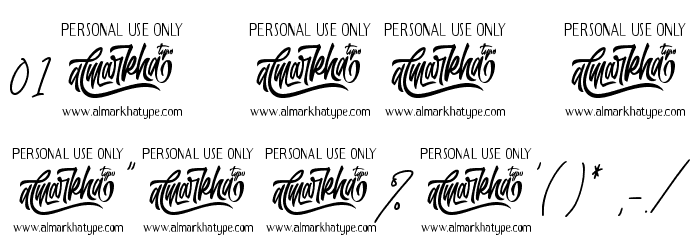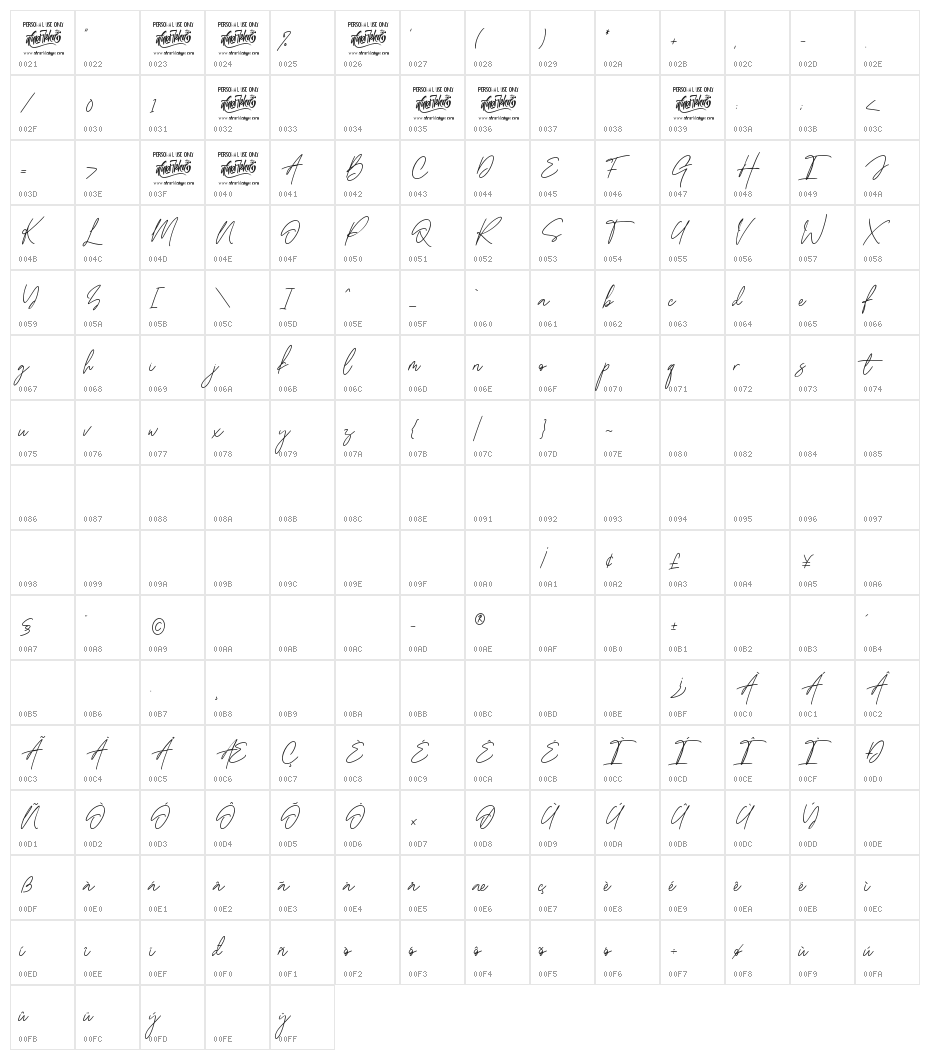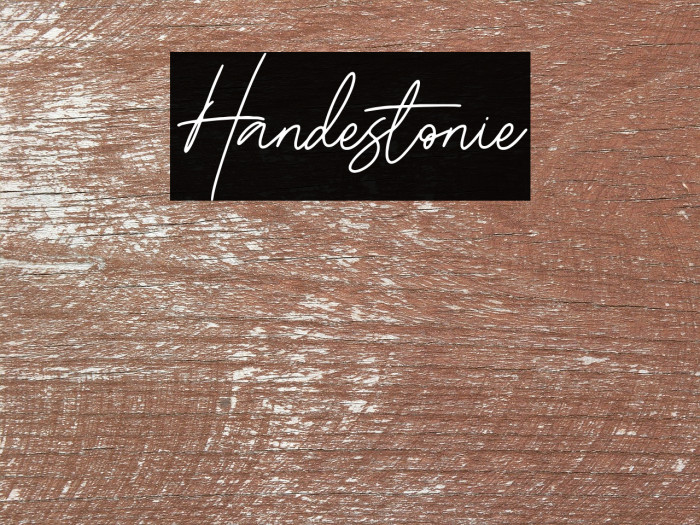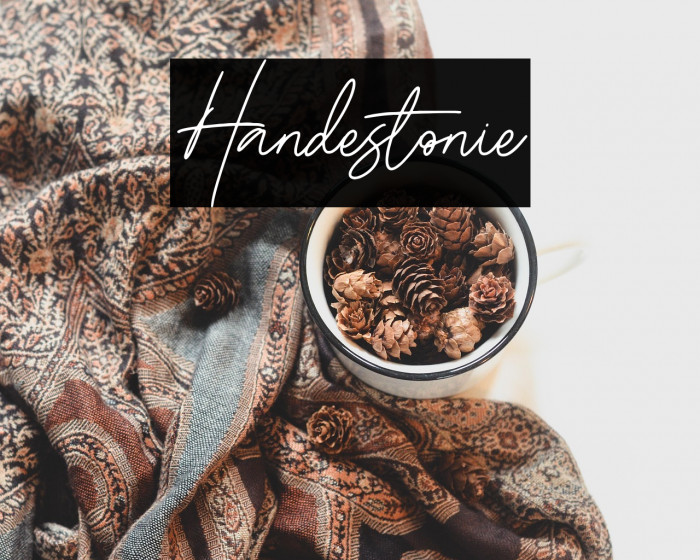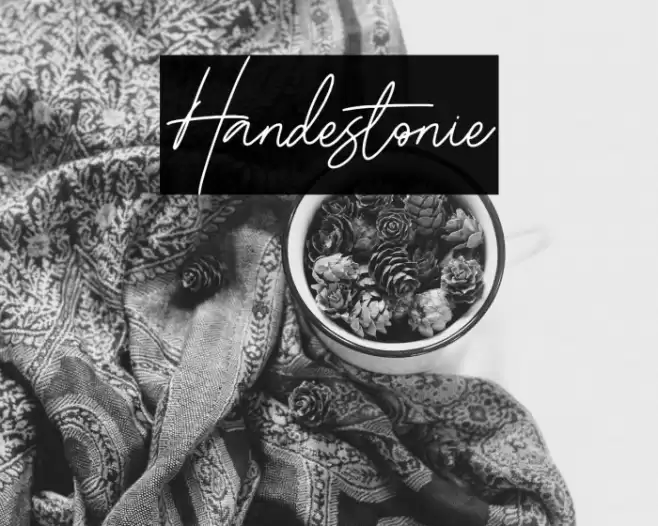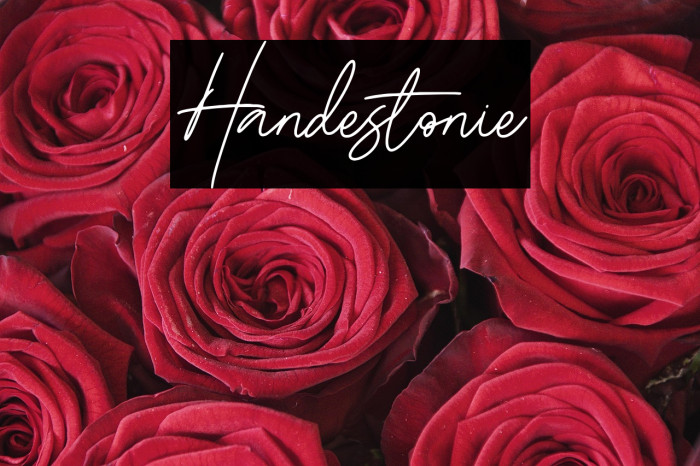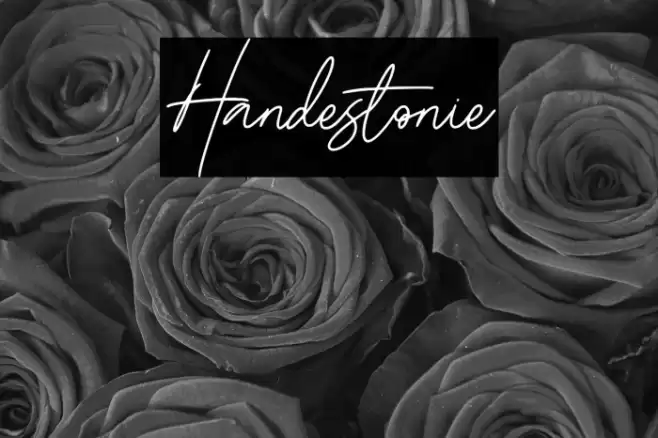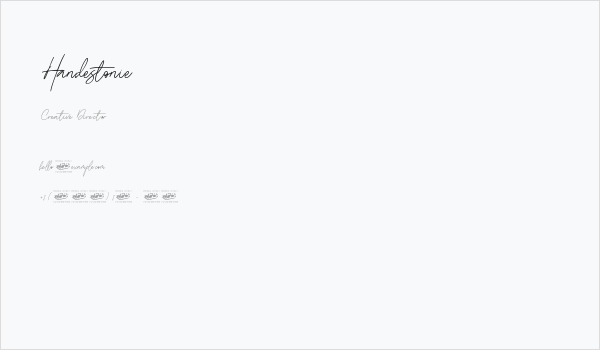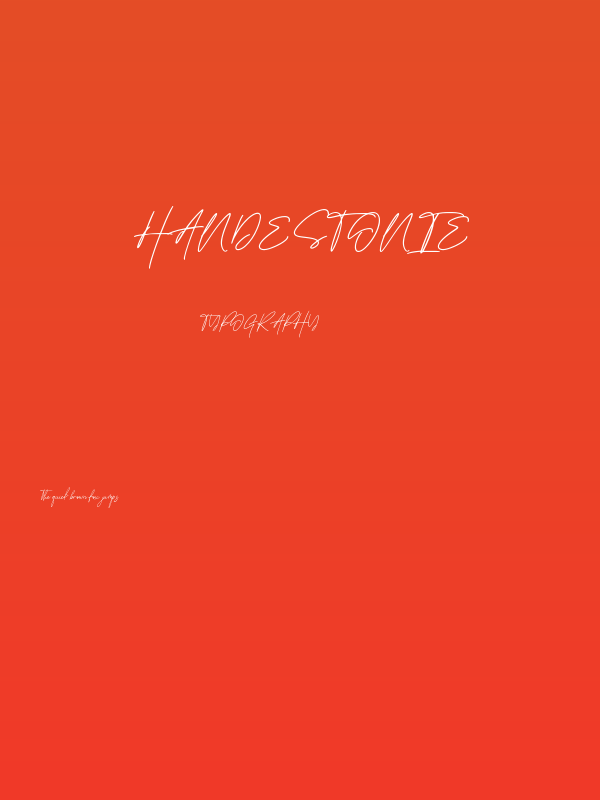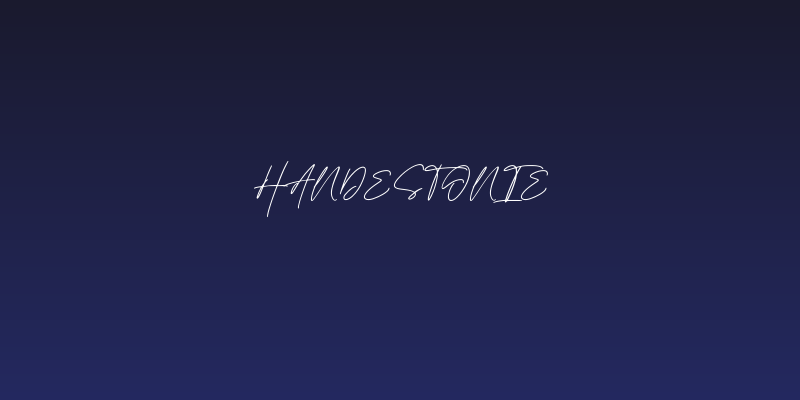
Handestonie Font
Handestonie Description
This font features a flowing, cursive style with a handwritten appearance. The letters are connected, creating a seamless and elegant script. The uppercase letters are bold and expressive, while the lowercase letters maintain a consistent flow with slightly more subtle curves. The numbers and special characters are designed to match the overall aesthetic, adding a touch of sophistication. The font's strokes are thin, with a medium contrast that enhances its readability while maintaining a stylish look. This font is ideal for projects that require a personal and artistic touch.
| Overall Style | Elegant, Artistic |
| Use Case | Logos, Invitations, Personal projects |